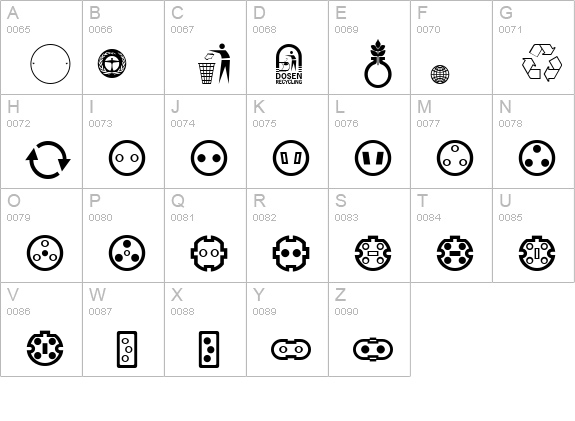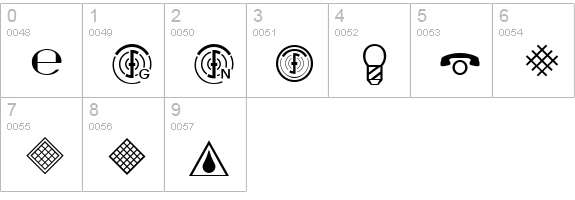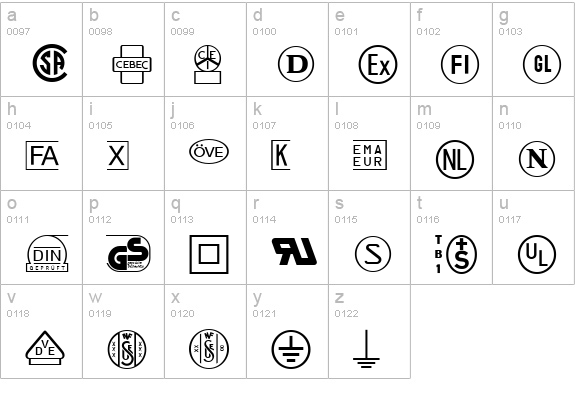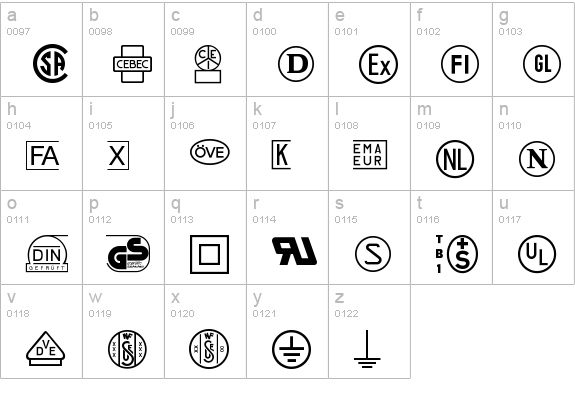
Technical LH Pi One is a modern and versatile font designed specifically for technical and mathematical documentation. With its clean and precise lines, this font is perfect for displaying complex numerical data, equations, and formulas with utmost clarity and readability. The unique and distinctive design of Technical LH Pi One sets it apart from other fonts, making it an excellent choice for engineers, scientists, and researchers who require a visually appealing and professional font for their technical writings. One of the standout features of Technical LH Pi One is that it is completely free to download. This means that anyone can access and make use of this exceptional font without any cost. It is available for download at FontsMarket.com, a reputable website that offers a wide range of high-quality fonts for various purposes. Whether you are working on a technical report, a research paper, or a presentation, Technical LH Pi One will elevate the visual appeal of your content and add a touch of sophistication. Its sleek and modern design combined with its effortless legibility make it a top choice for those in need of a font that seamlessly merges functionality and aesthetics. Enhance your technical documents with Technical LH Pi One and experience the ease of conveying complex information with elegance and professionalism. Download it for free at FontsMarket.com and take your technical writings to the next level.